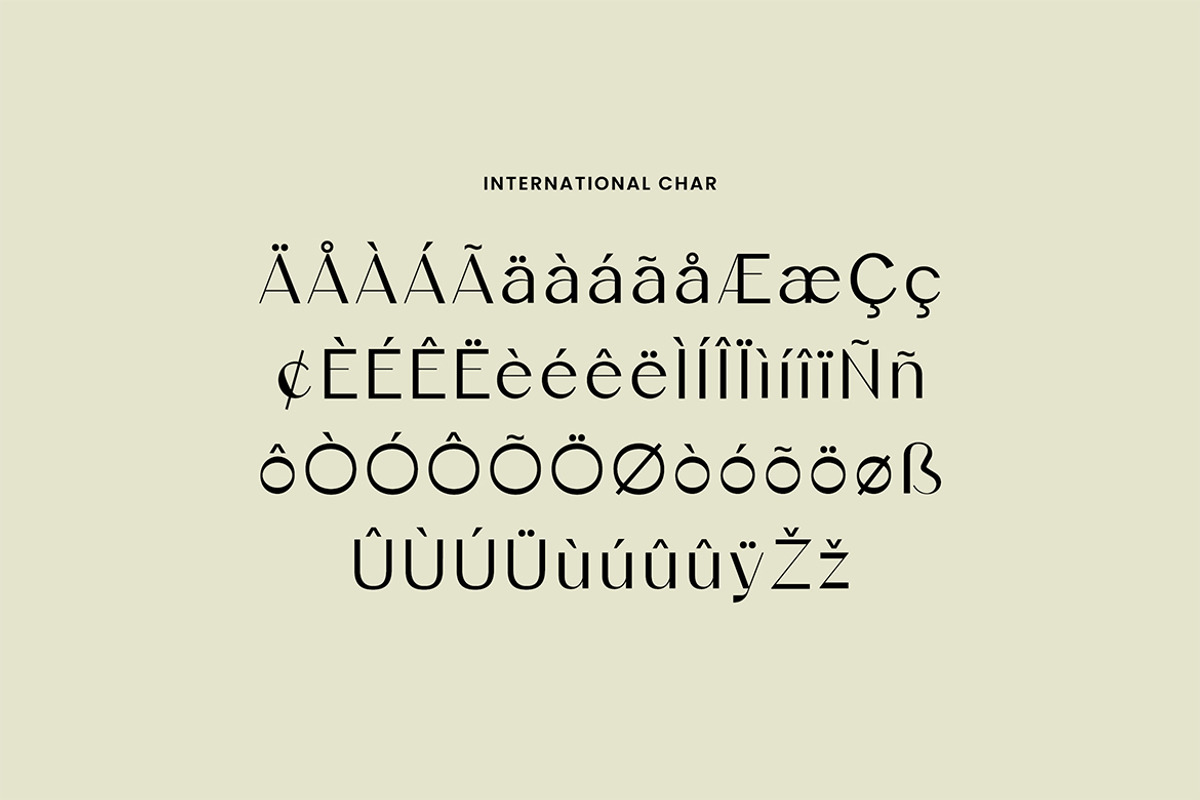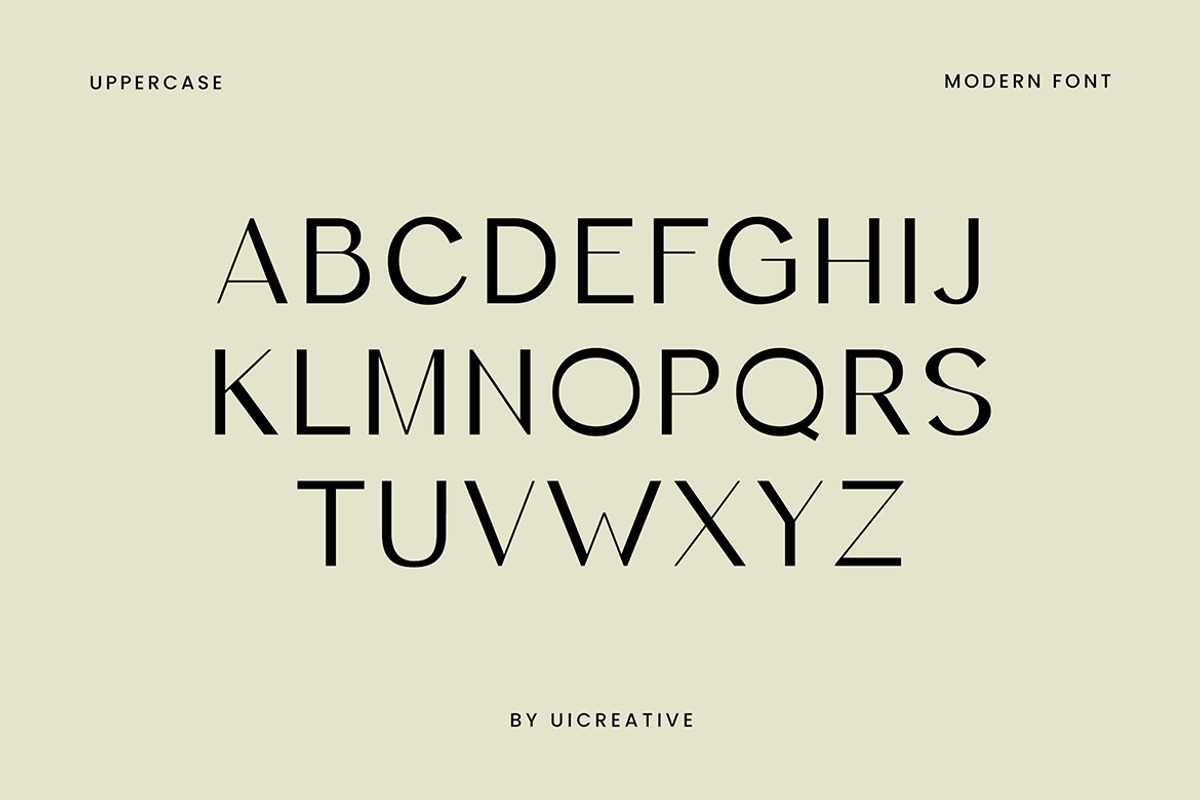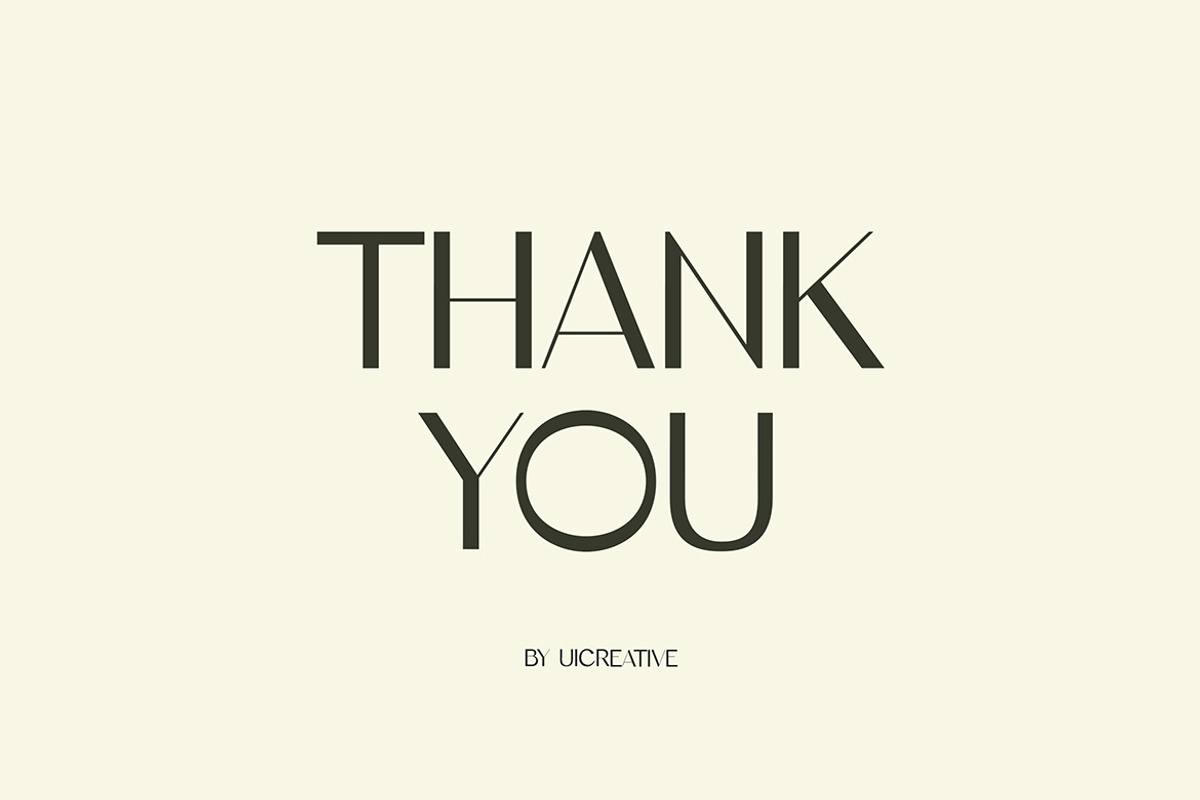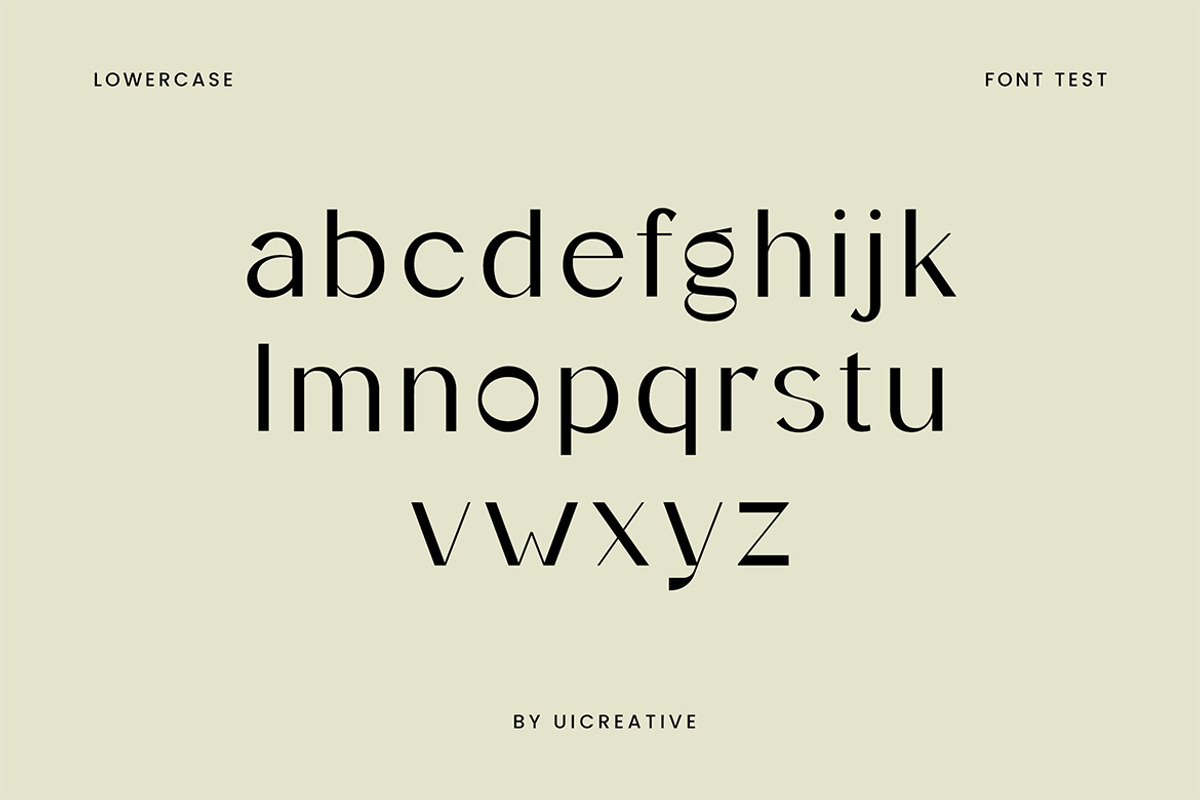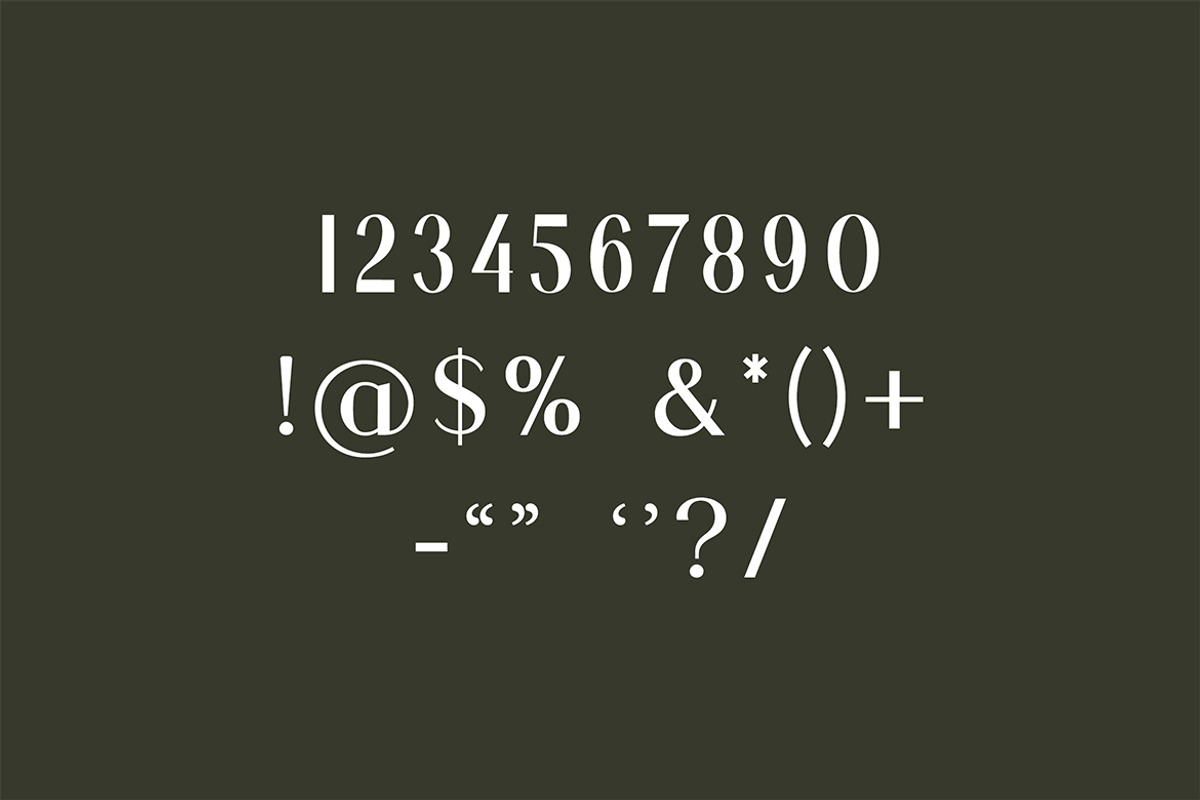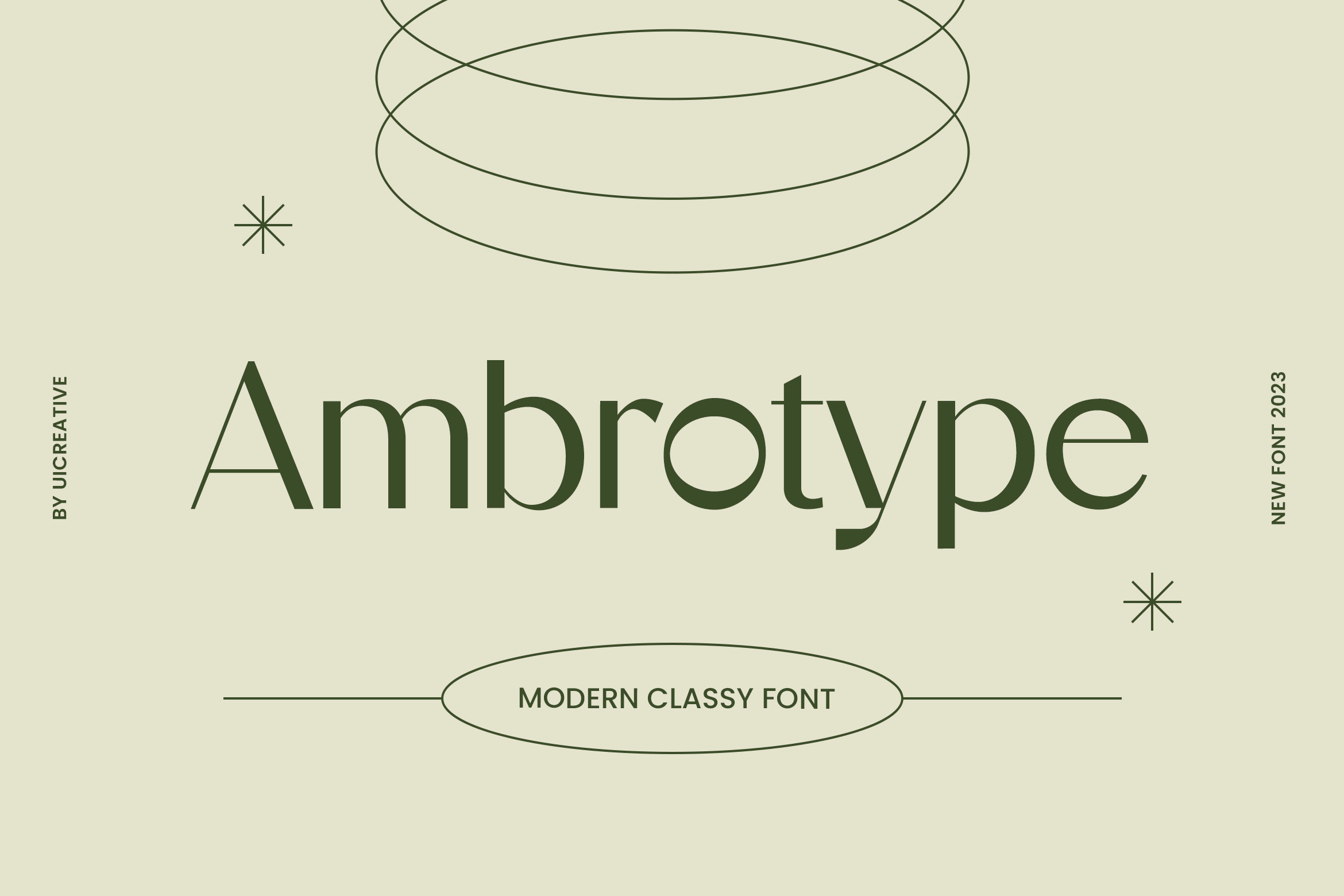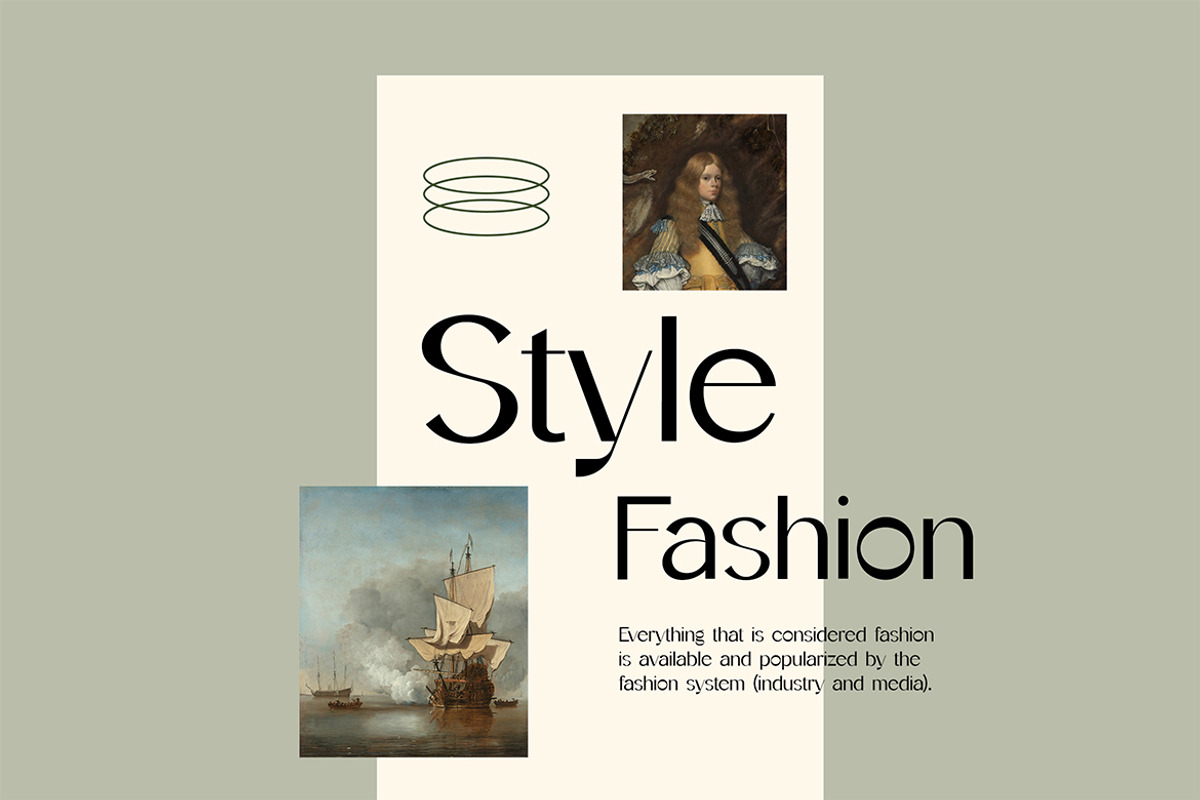
Ambrotype Modern Sans Serif Font
Introducing our new product the name is Ambrotype Modern Sans Serif Font. Modern Serif font that feels beautiful classy, elegant, and modern. This font is ideally suited for a wide variety of projects, such as signature, stationery, logo, wedding, typography quotes, magazine or book covers, website headers, clothing, branding, packaging design, and more. Also, fashion-related branding or editorial design displays both masculine and feminine qualities.